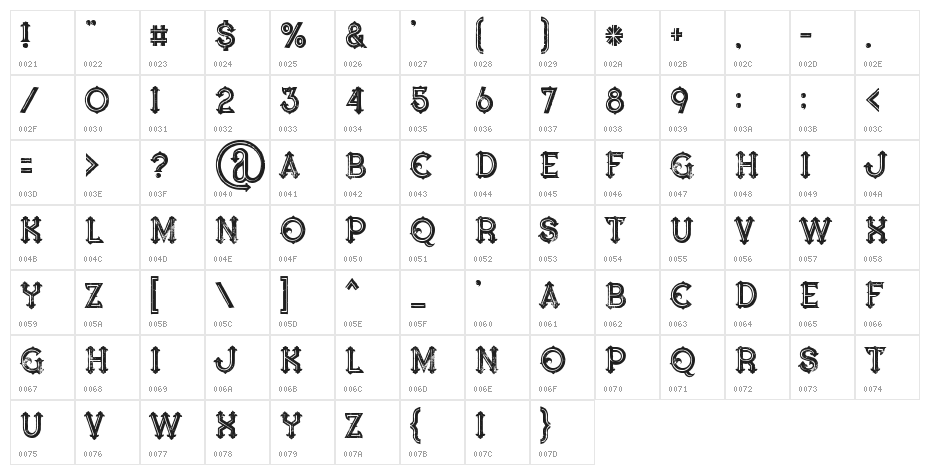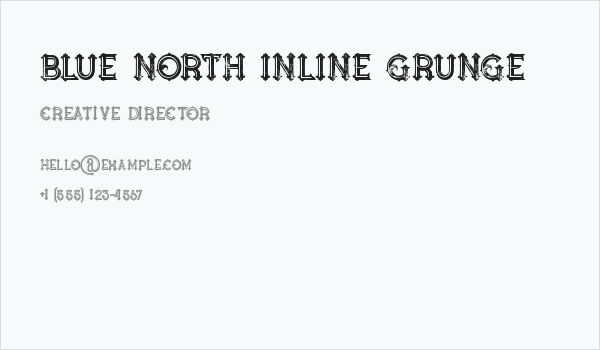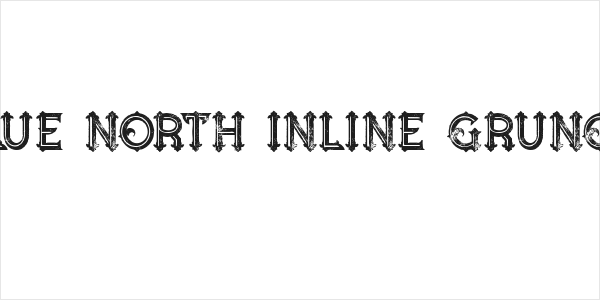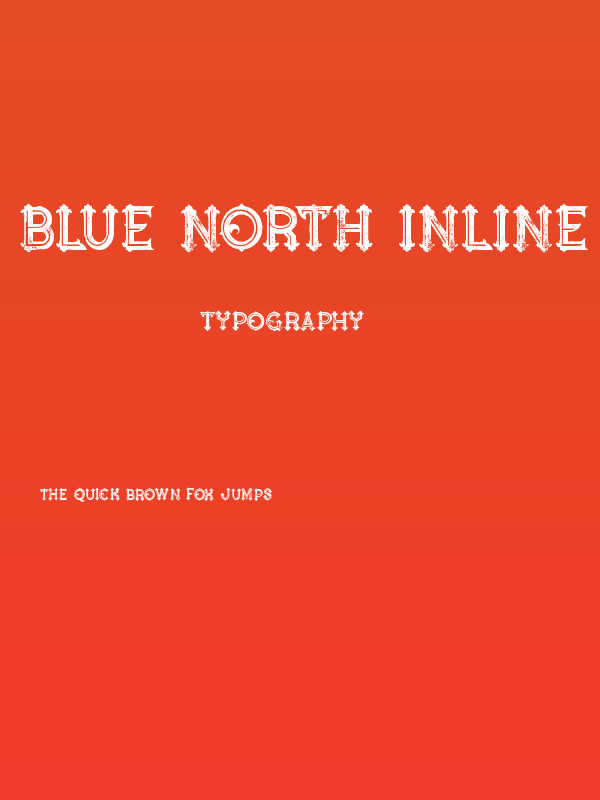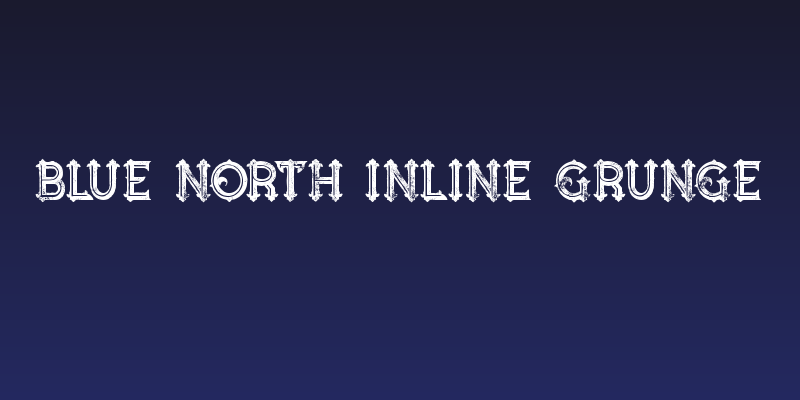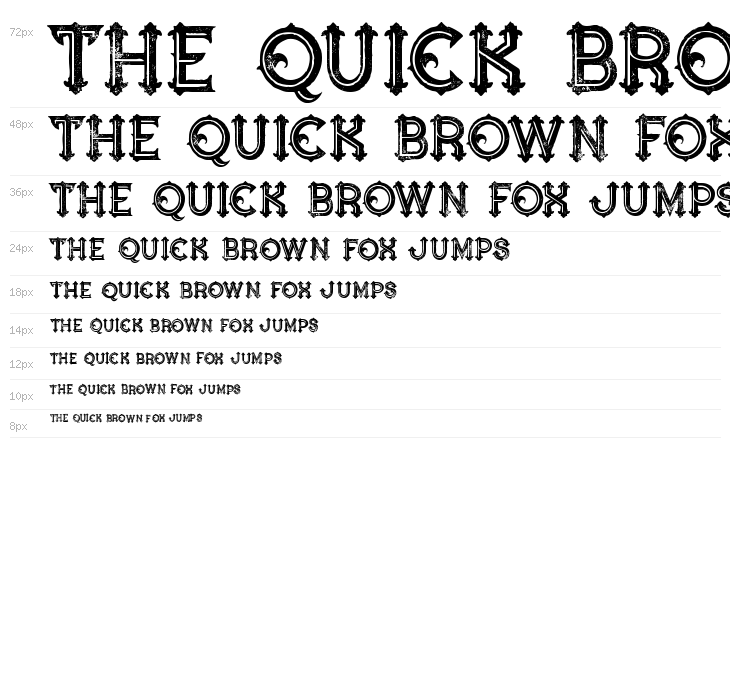
Blue North Inline Grunge Font
Blue North Inline Grunge Description
This font features a bold and rugged design with a distressed, grunge effect that gives it a worn and vintage appearance. The characters have an inline style, adding depth and dimension to the overall look. The uppercase and lowercase letters maintain a consistent style, with sharp edges and a slightly condensed form. The numbers and special characters follow the same aesthetic, making the font versatile for various design needs. The unique texture and bold presence make it ideal for creating eye-catching headlines and logos.
| Overall Style | Vintage, Grunge |
| Proposed Projects | Perfect for vintage-themed posters, album covers, branding, and merchandise designs. |